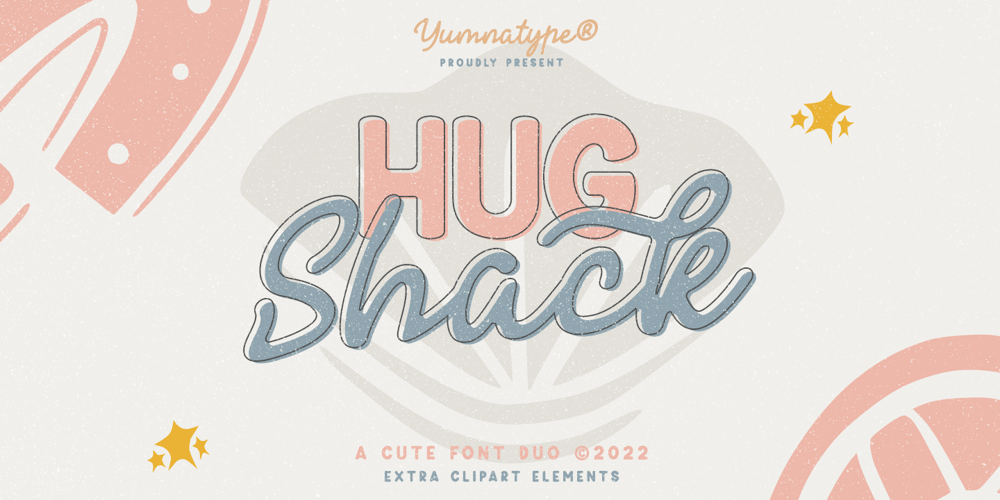
Hug Shack Font Family was designed by Donis Miftahudin and published by Yumna Type. Hug Shack contains 3 styles and family package options. A beautiful and easy-to-style font duo to elevate your design. Hug Shack expresses a feeling of joy and cute overall. Through the script font, Hug Shack brings your design to delve deep into the world of cuteness, while the display font creates modern look. You can mix and match this harmonious font duo to make gorgeous result in your design. This font become more special with awesome clipart as bonus. Features: Stylistic Sets Ligatures Multilingual Supports Numerals and Punctuation It can be used for branding, logos, social media quotes, stickers, posters, vintage designs, wall art, merchandise, social media, and many more. Get more inspiration by seeing the preview. Thank you for purchasing our premium fonts! Happy Designing!